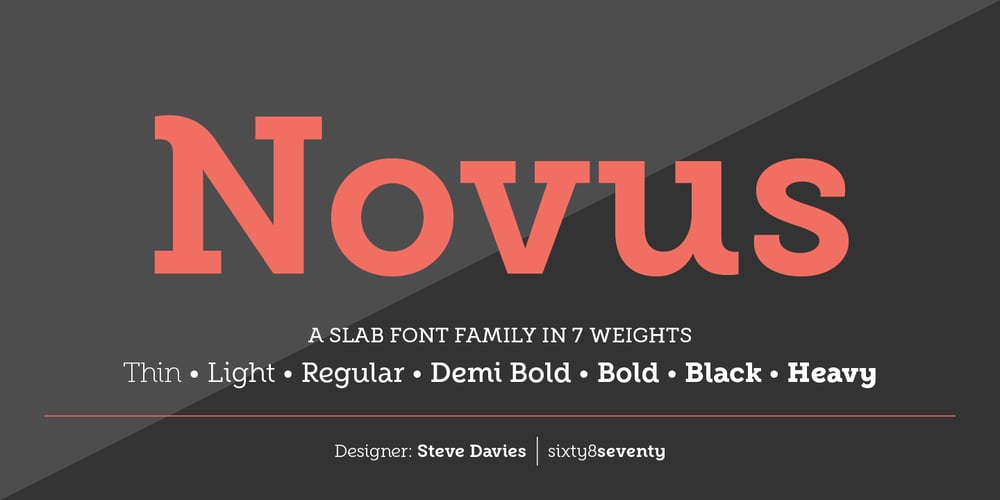
Novus Font Family was designed by Steve Davies and published by Sixty8seventy. Novus contains 7 styles and family package options. Novus, meaning new, is a contemporary slab serif that introduces soft curves throughout, creating a typeface that conveys a softer tone while retaining the robust feel of a great slab serif. Novus is an ideal choice for headlines, branding, advertising, websites, social media and packaging. It also works well for short and medium-length text. Novus supports Central, Eastern as well as Western European languages and comes in seven weights. Opentype features include; ligatures, subscript, superscript, numerators, denominators and fractions.